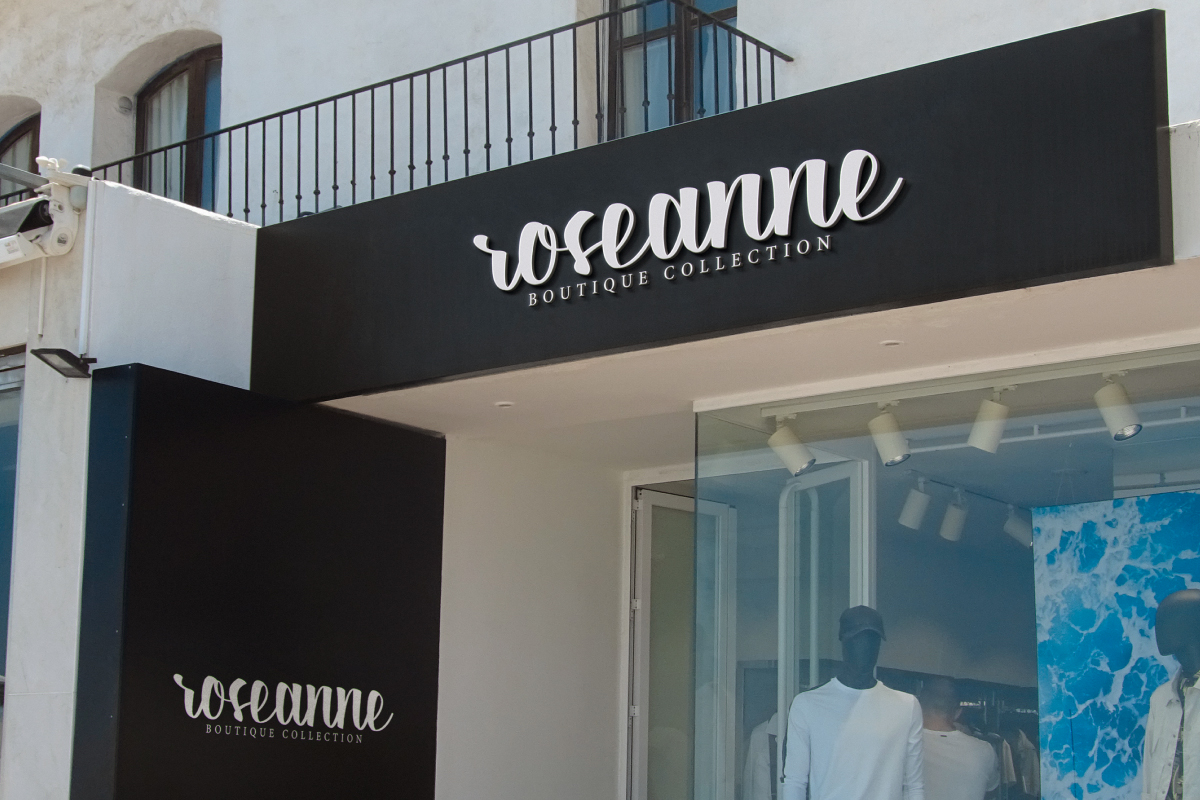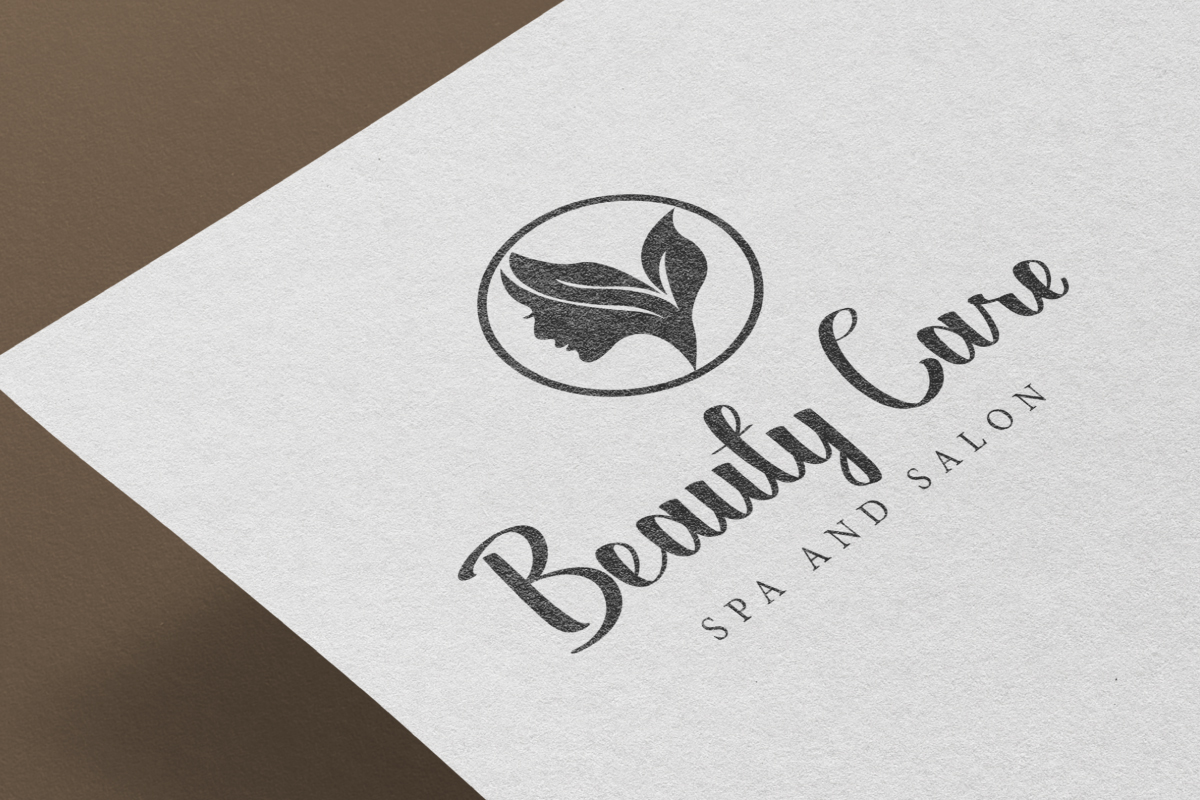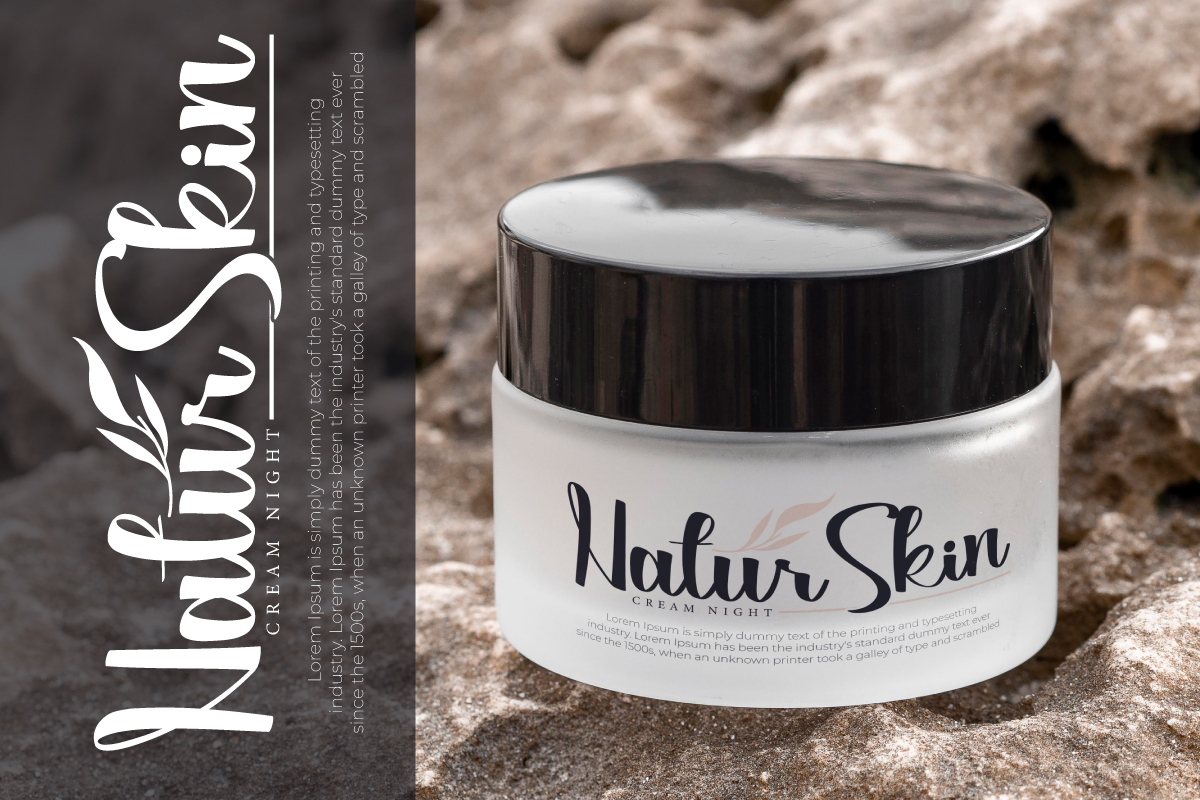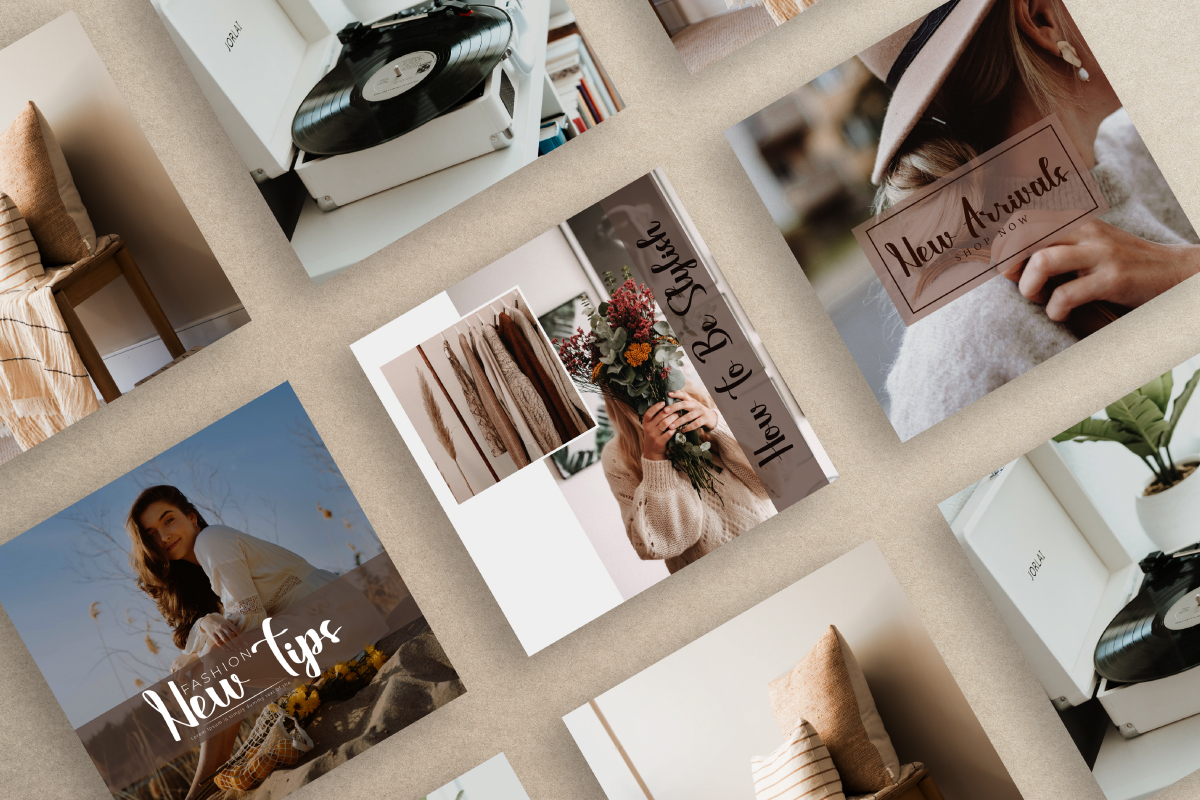
Anthonyela Font
Anthonyela Script Font
This is a bold calligraphy script font with classic and elegant look. This font is perfect for modern projects, blogs, headings, invitations, labels, photography, sign and more!